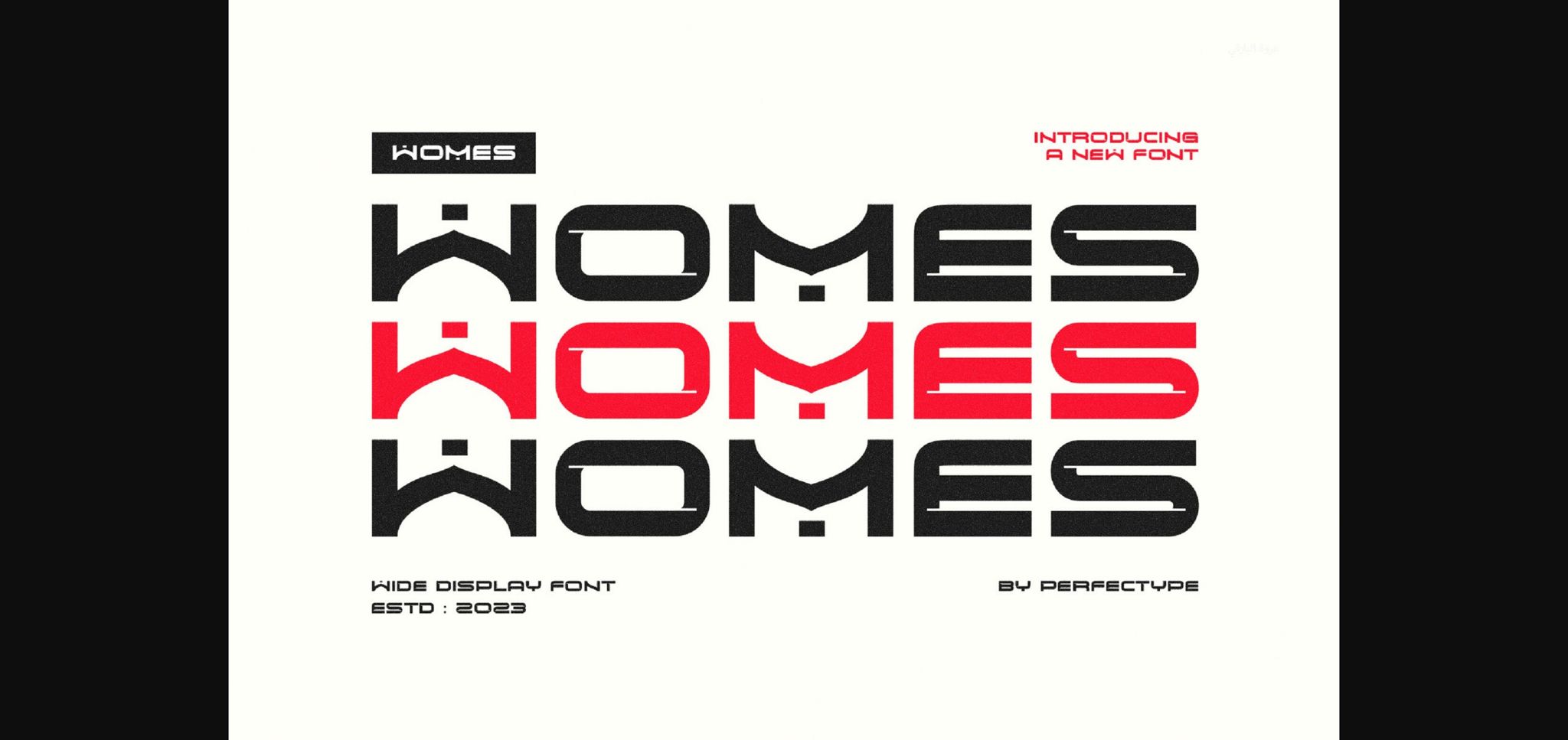
About Womes Font
Womes: A modern, futuristic sans serif font that embraces cutting-edge technology. With its sleek and contemporary style, Womes brings a touch of the future to your design projects. Perfect for a clean and minimalistic look, this font is a versatile choice for a wide range of modern applications. Upgrade your visual appeal with Womes and effortlessly infuse a sense of innovation into your creations.